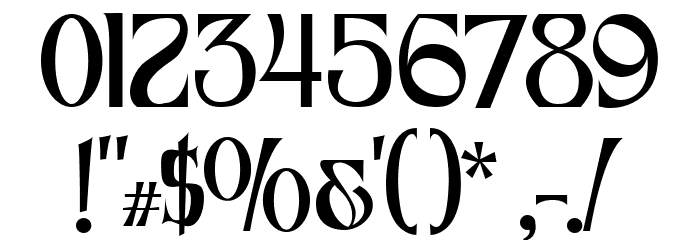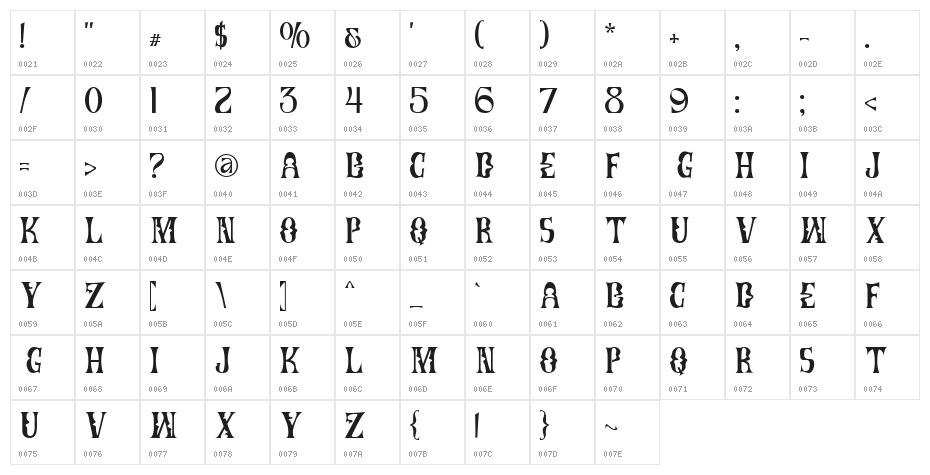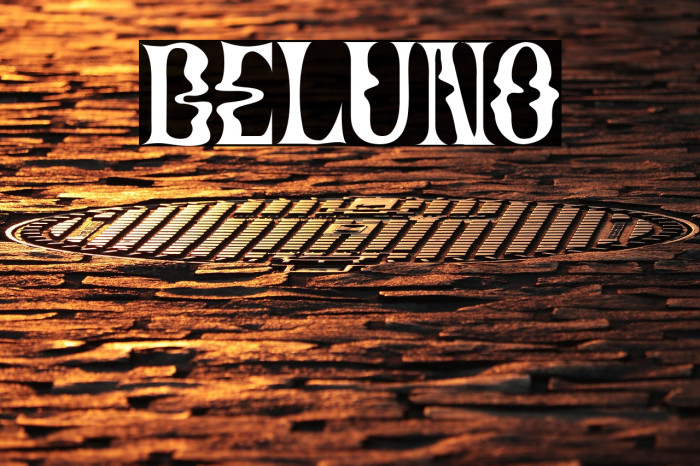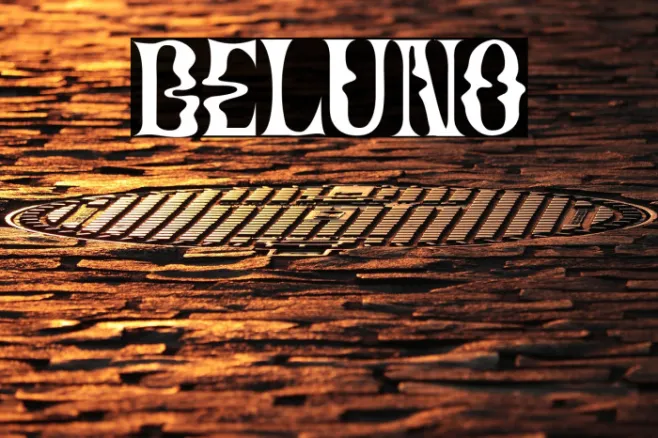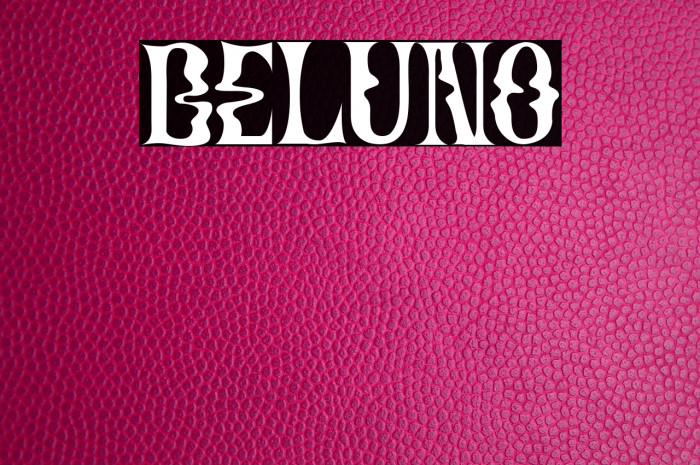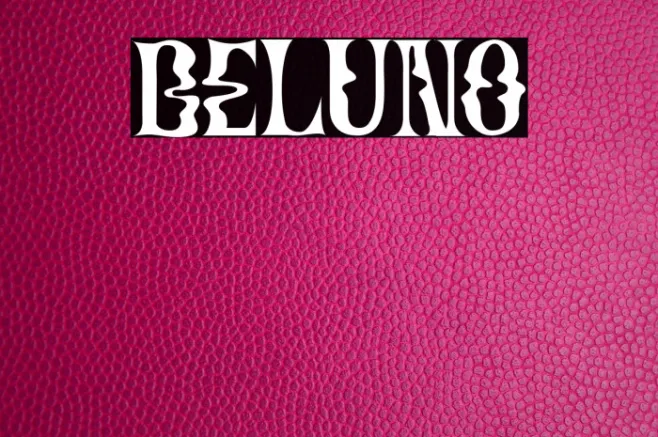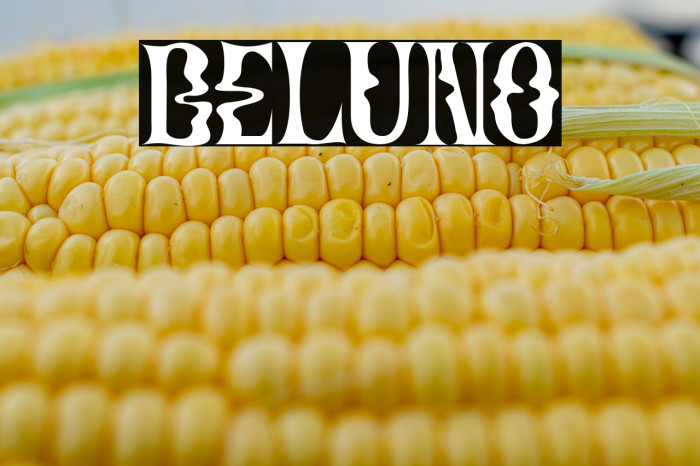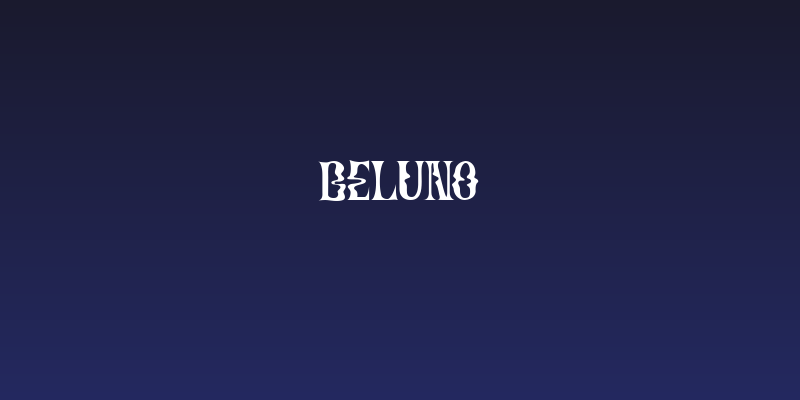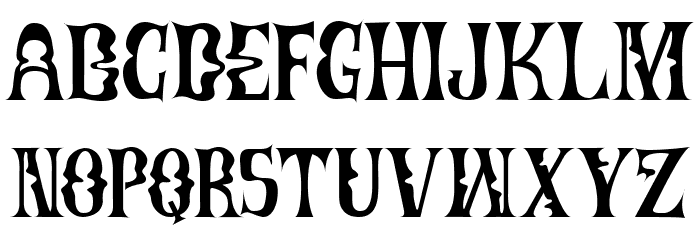
Beluno Font
Beluno Description
This font features a bold and dramatic style with sharp, angular edges and high contrast between thick and thin strokes. The characters are highly stylized, with unique cut-out shapes that create a striking visual impact. The uppercase letters exhibit a strong presence, while the lowercase letters maintain the same distinctive design. The numerals are equally bold, ensuring consistency throughout the typeface. Special characters are designed to match the overall aesthetic, making this font suitable for attention-grabbing designs.
BELUNO UPPERCASE
| Proposed Projects | Ideal for posters, logos, branding, and any design requiring a bold, eye-catching typeface. |